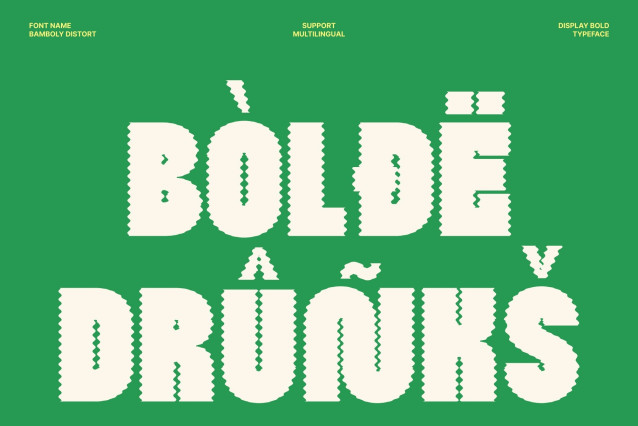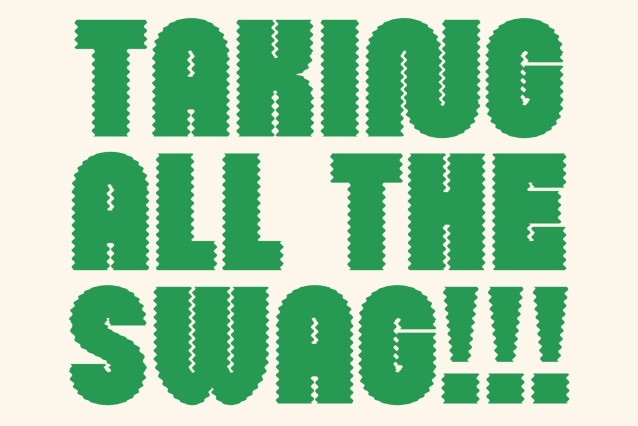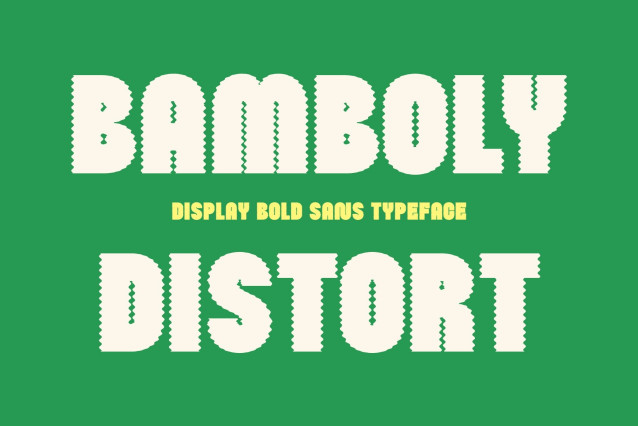
Bamboly Distort – Bold Sans Serif Display Font: Where Playful Modern Shapes Meet Fluid Distortion
Striking Contemporary Forms with Playful Energy
This is a bold sans serif display font designed with striking playful shapes and modern visual character that instantly demand attention. Its strong geometric structure and expressive proportions create a lively, energetic appearance filled with creativity and contemporary style. Every character feels bold and engaging, making the font perfect for standout display compositions and eye-catching branding.
Distort Effect with Organic Melting Motion
This font features fluid organic contours along the letter edges that create a subtle melting effect. This expressive detailing introduces movement, softness, and artistic energy while preserving the font’s bold sans serif structure. The result is a dynamic visual appearance that feels playful, modern, and visually immersive.